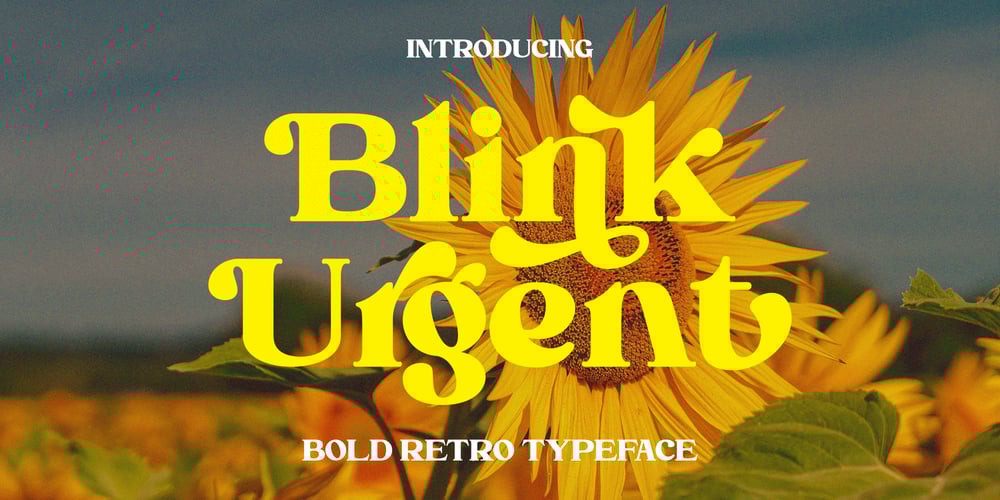
Blink Urgent Display Font Family was designed by Dzulka Elfira and published by Tebaltipis Studio. Blink Urgent Display contains 1 styles and family package options. Blink Urgent – Modern Bold Serif Font is a stylish font It has both modern and retro look. Comes with alternatives and ligatures, helps to create stunning logos, quotes, posts, blog posts. branding projects, magazine imagery, wedding invitations, and much more.